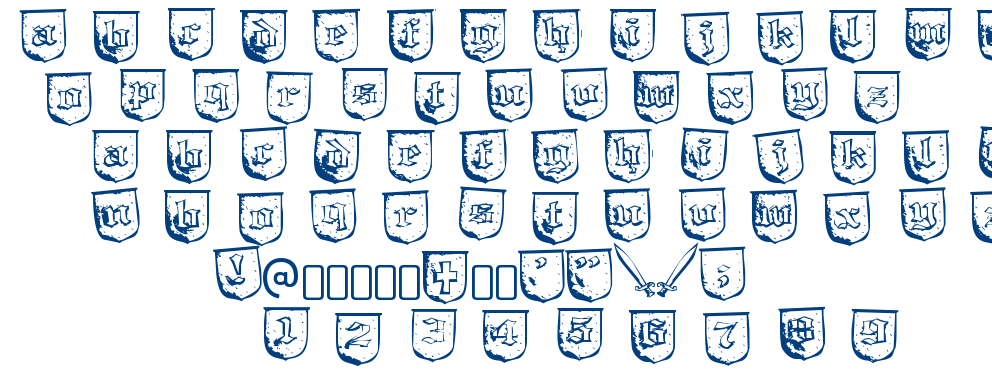
Troll Bait was designed to cause tabletop role playing gamers to squeal with delight but so far has not done so. Don’t forget to read the files inside the zip for details.